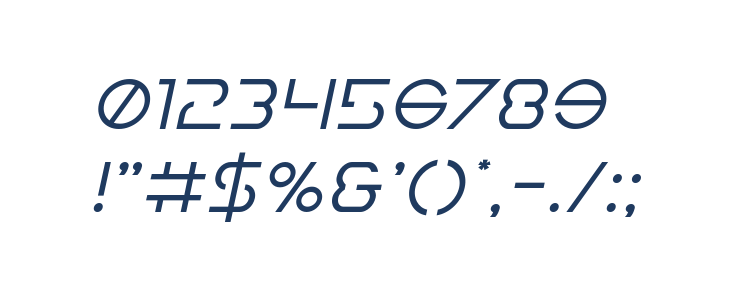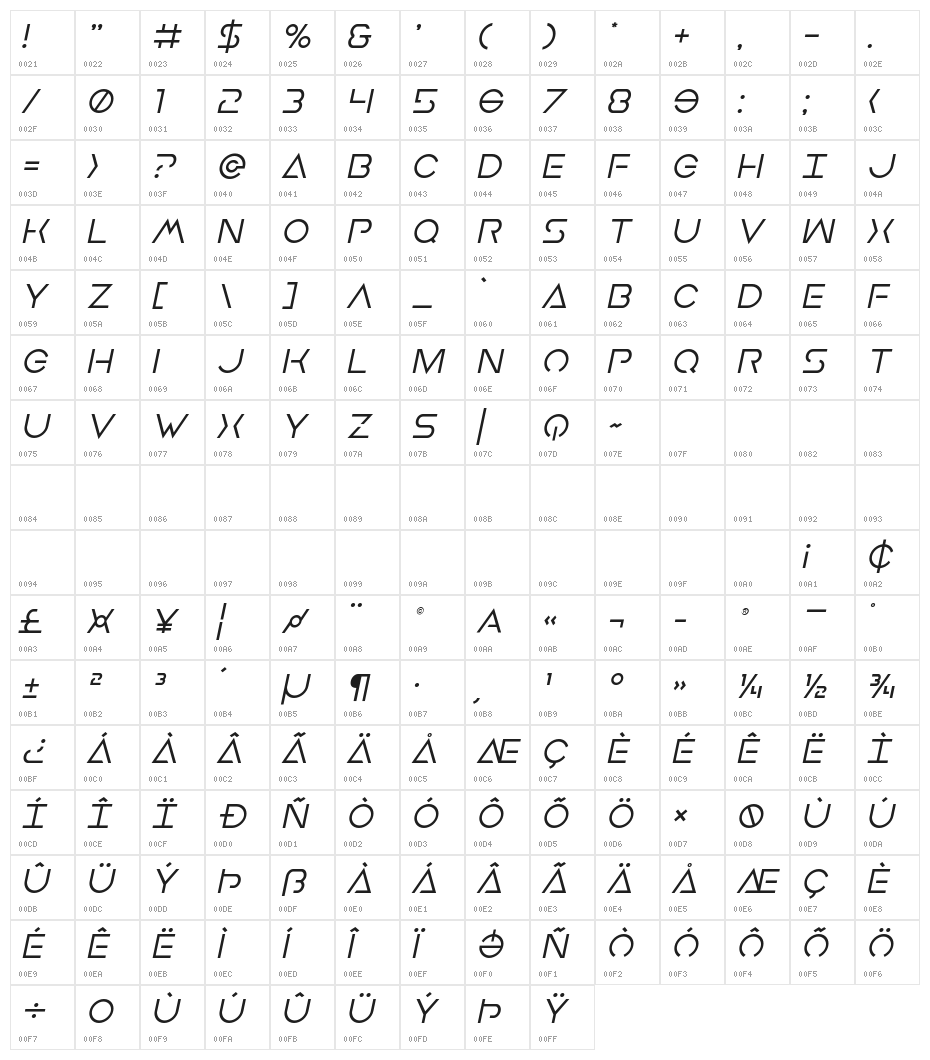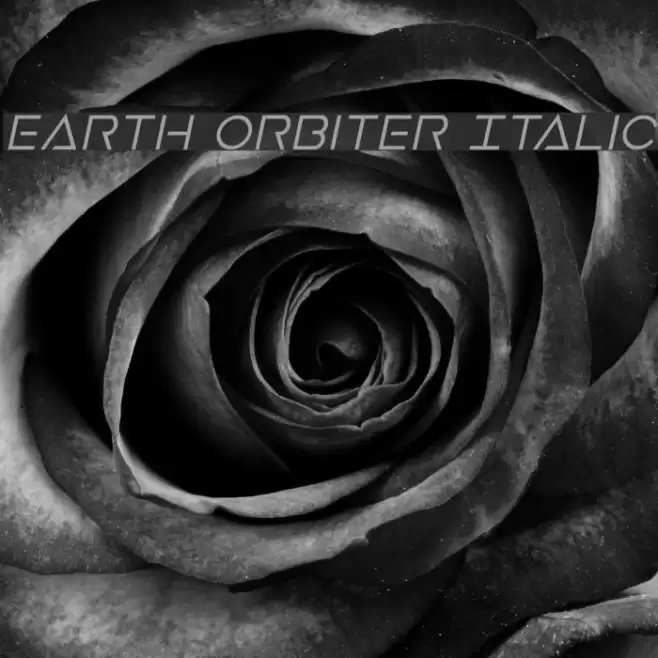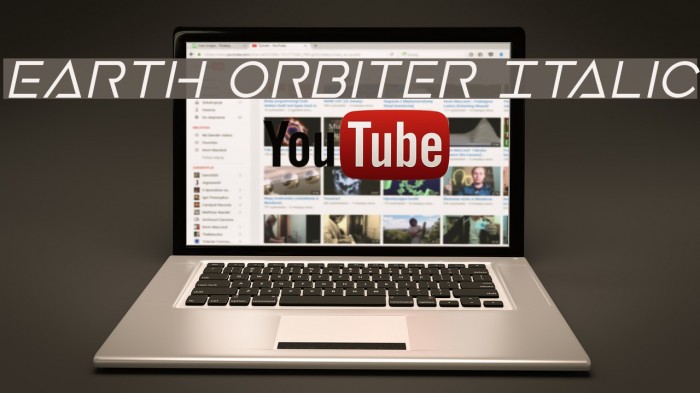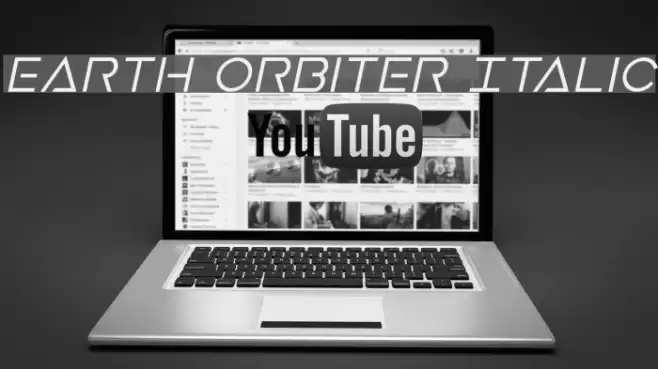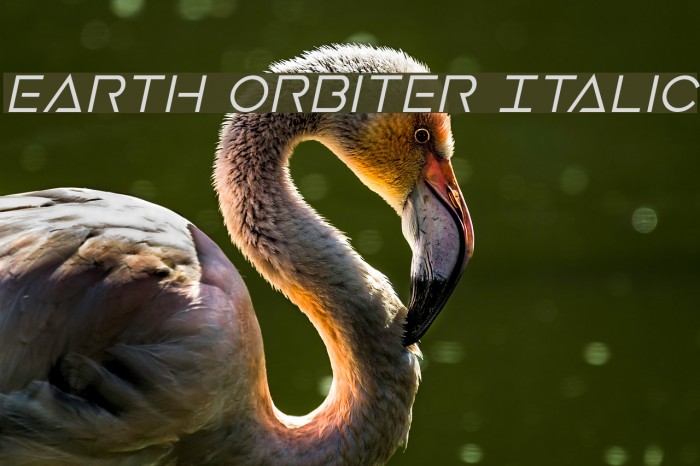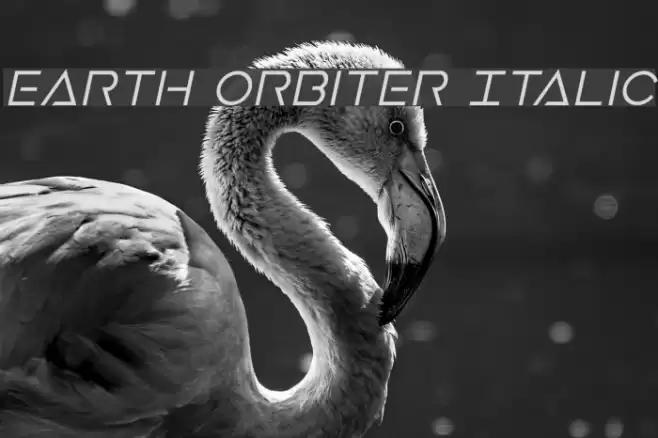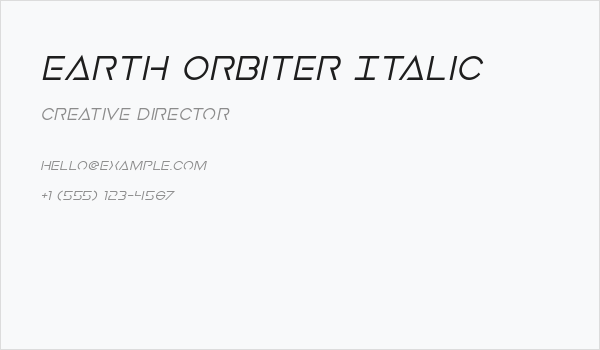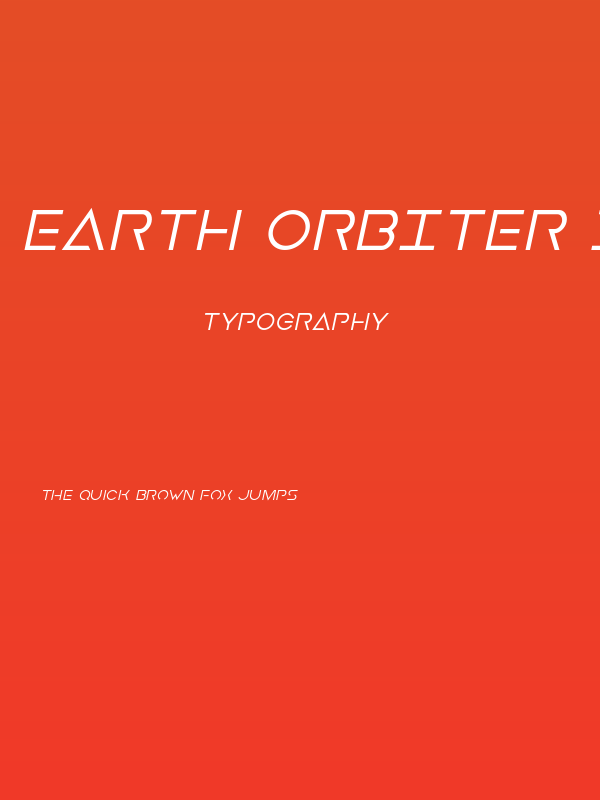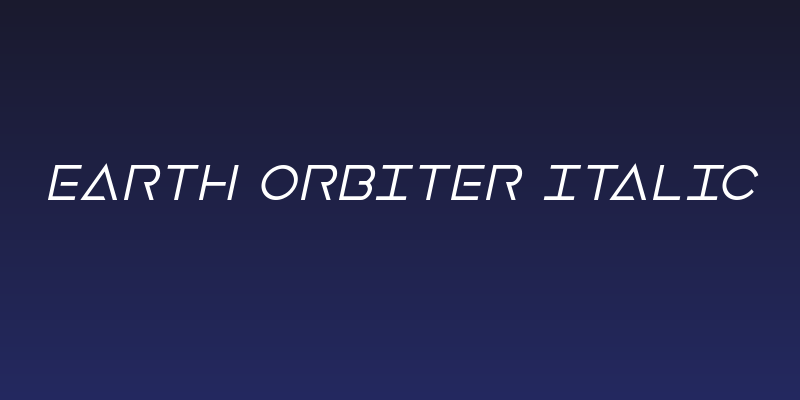
Earth Orbiter Italic Font
Earth Orbiter Italic Description
This font features a sleek, futuristic design with an italicized slant, giving it a dynamic and forward-moving appearance. The characters are crafted with clean, geometric lines, emphasizing a modern aesthetic. The uppercase and lowercase letters maintain a consistent style, with sharp angles and a slightly condensed form. The numerals and special characters follow the same design principles, ensuring uniformity across all glyphs. The overall look is minimalistic yet impactful, making it suitable for projects that require a contemporary and tech-savvy feel.
| Proposed Projects | Ideal for technology branding, sci-fi book covers, modern advertising, and digital interfaces. |